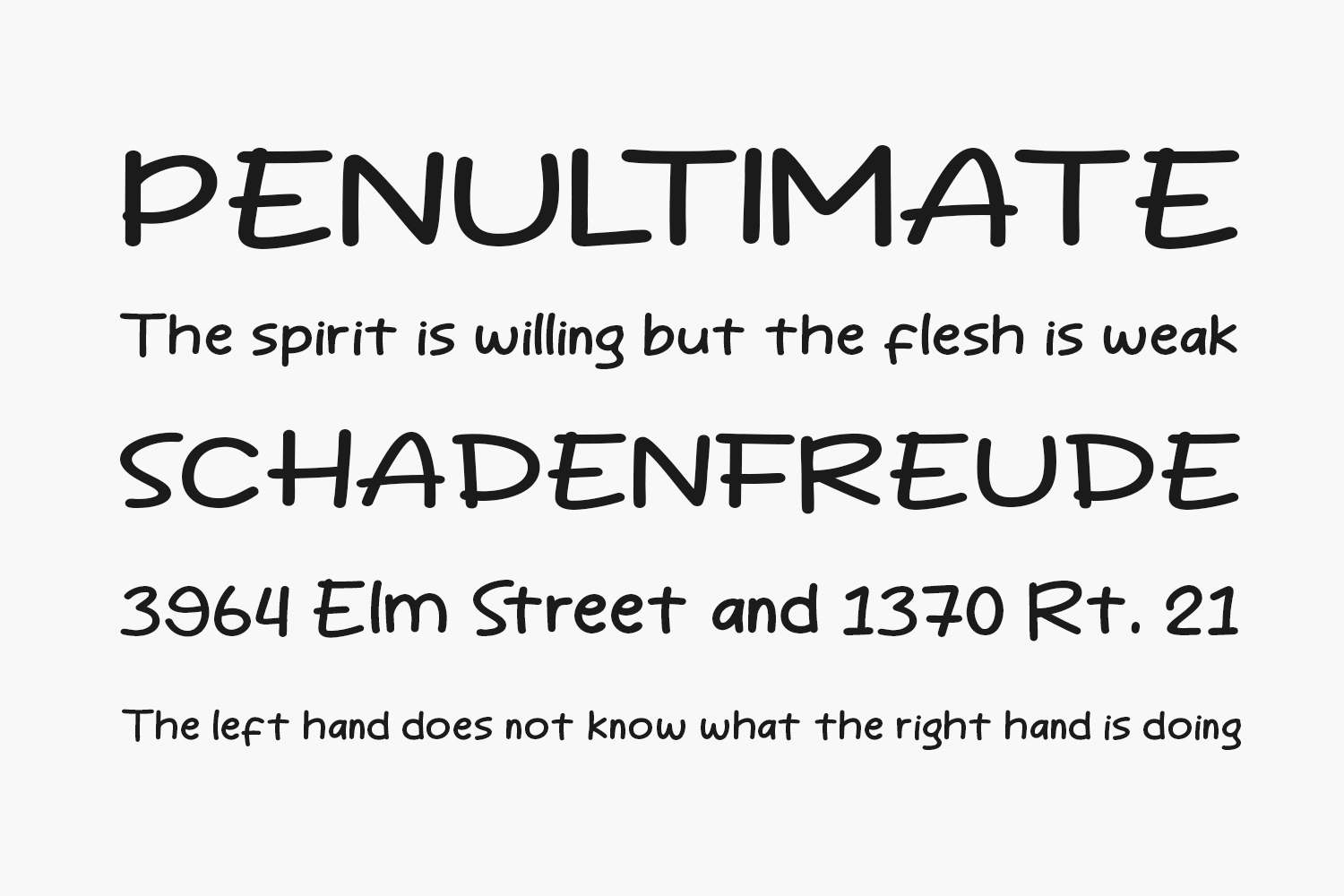
Introducing Howlimit Free Font – a contemporary and stylish display font, tailor-made for enhancing your posters, logos, magazines, book covers, banners, and a plethora of other creative projects! Embrace the allure of this extraordinary font to craft captivating designs effortlessly. Its versatility knows no bounds, seamlessly complementing an extensive array of projects. Elevate your creative ideas with Howlimit and witness the remarkable impact it bestows upon them! Grab this amazing font now and elevate your design game. Howlimit Free Font is free for personal use only. Please purchase the full version for commercial use.